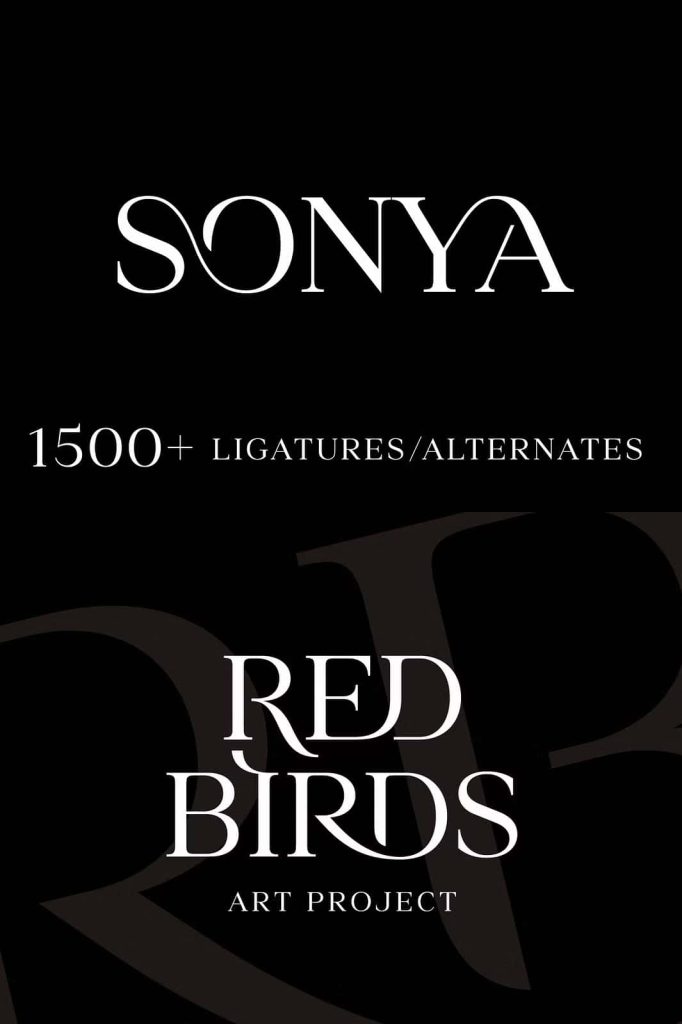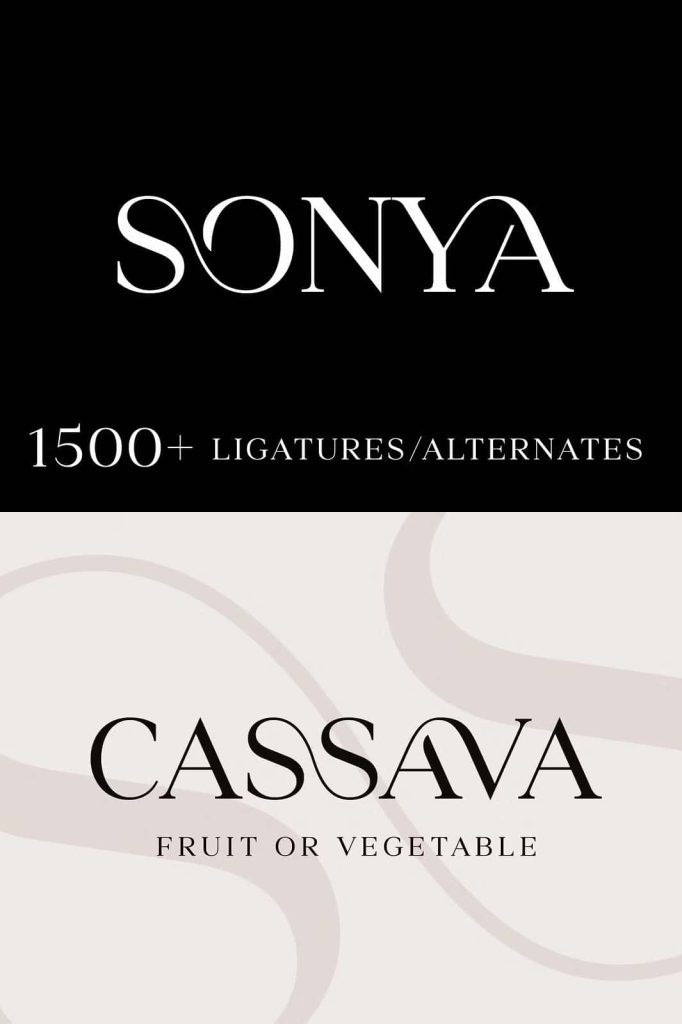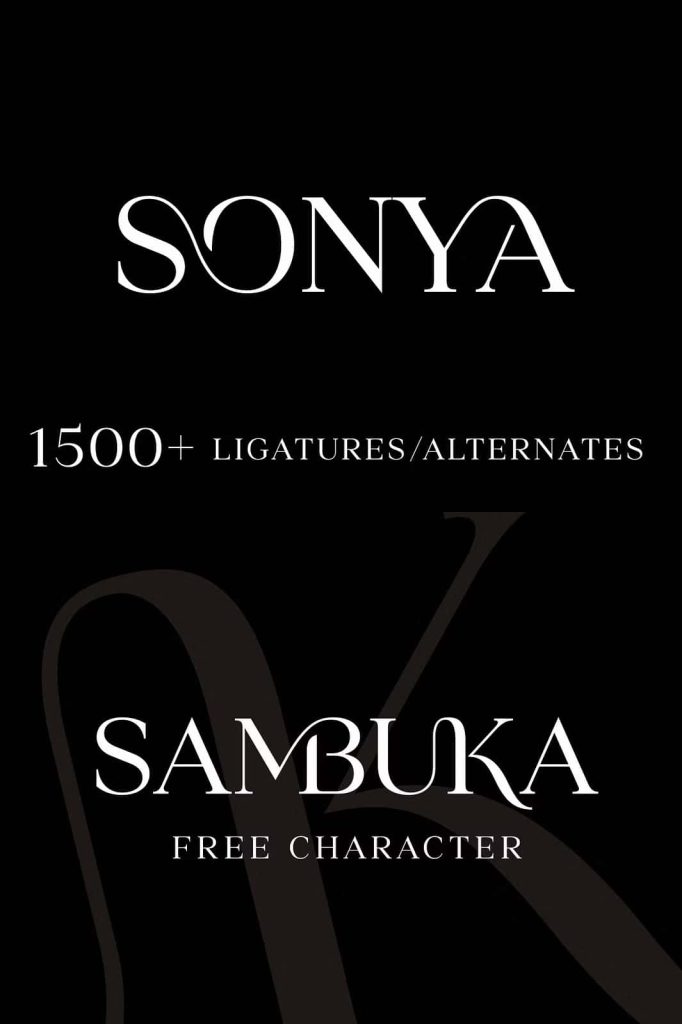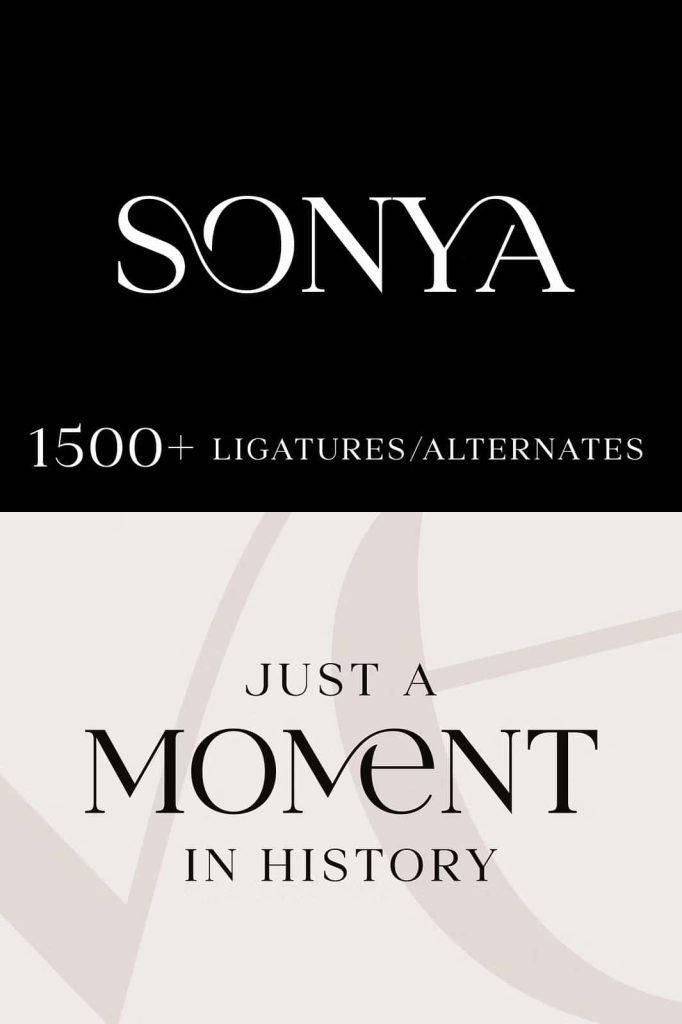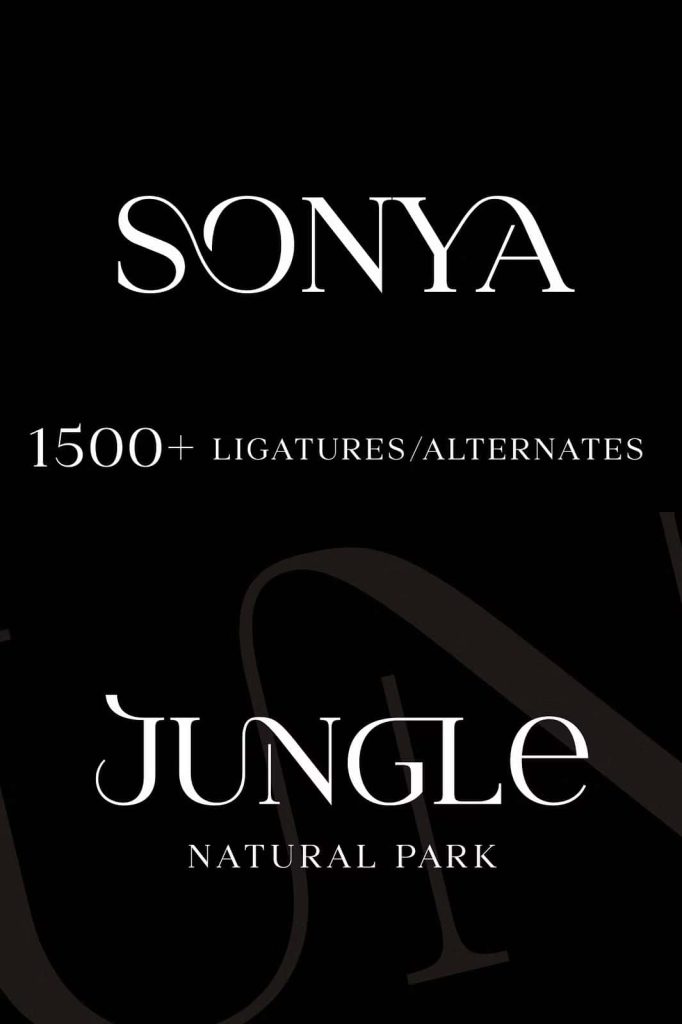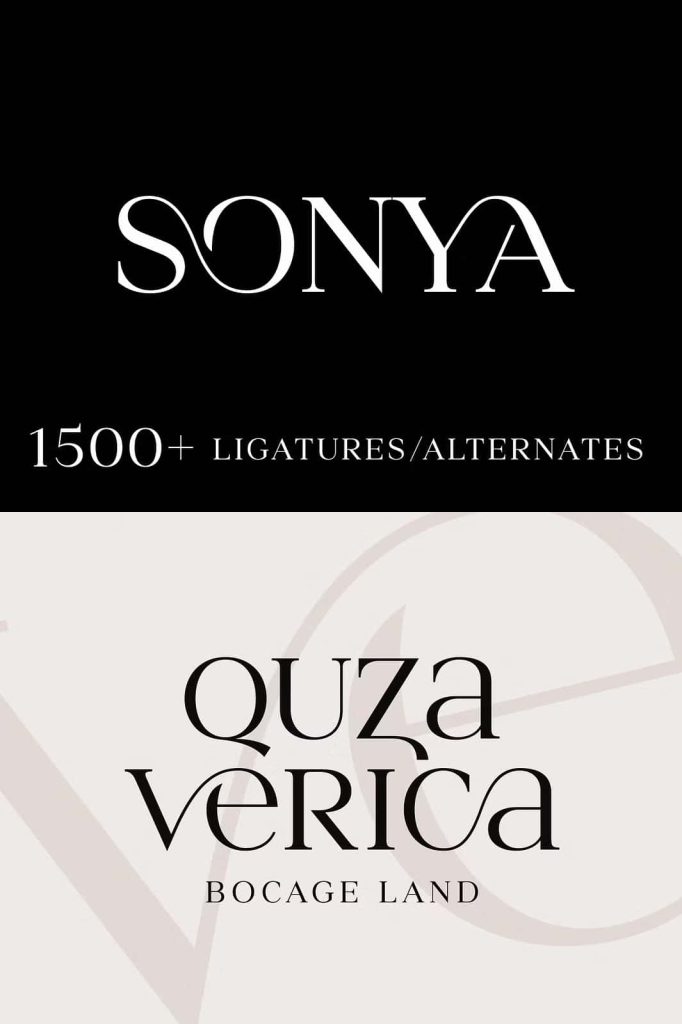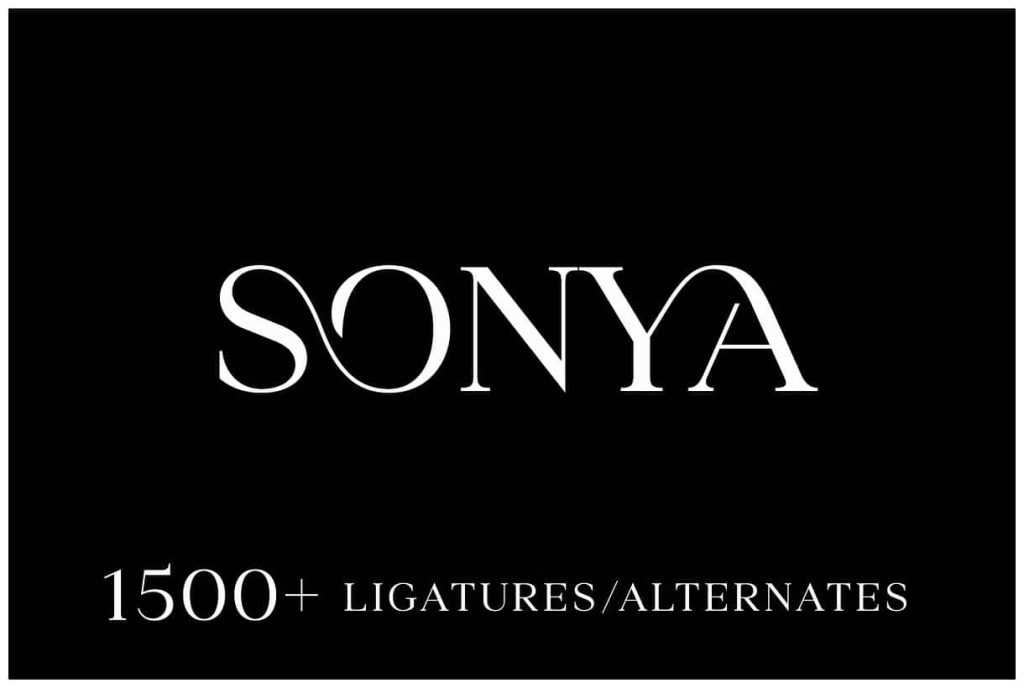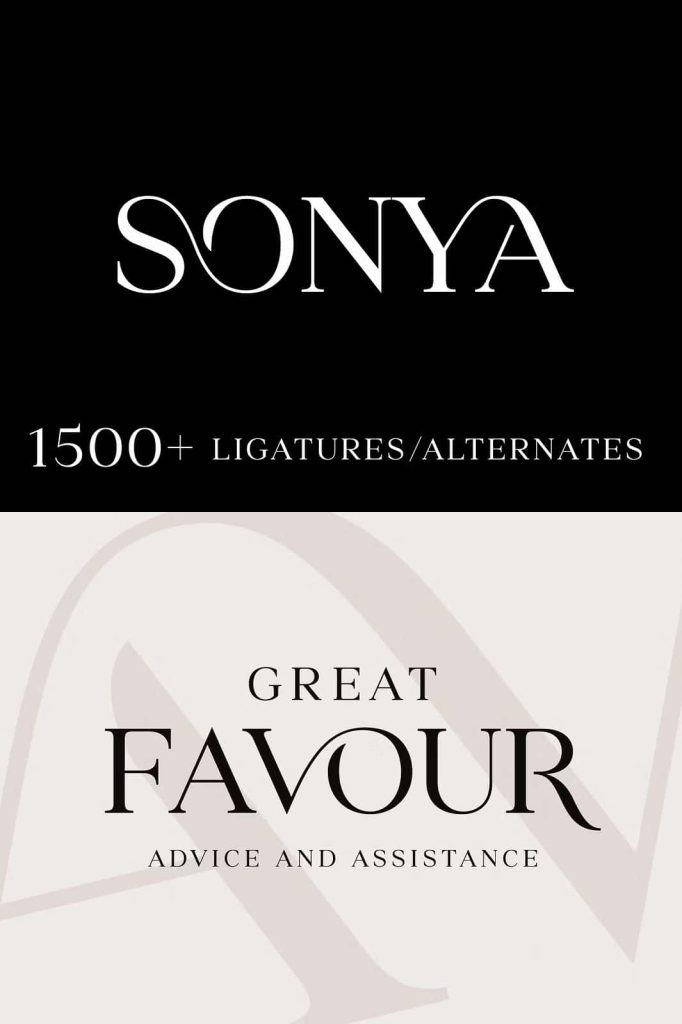
Sonya All Caps Serif Font: Elegant Power with Advanced Ligatures
Sonya is a modern all caps serif font that brings bold elegance and refined detail into contemporary typography. Designed with precision and creative flexibility in mind, Sonya transforms traditional serif structures into a powerful display tool. It offers a distinctive voice that feels both classic and innovative, making it ideal for designers who want to create impactful visual statements.
This typeface focuses entirely on uppercase letterforms, allowing it to deliver strong and consistent visual presence. With a wide variety of alternates and an advanced ligature system, Sonya provides unmatched control over typographic styling. Designers can shape text into unique compositions that stand out in branding, editorial layouts, and high-end design projects.
A Bold All Caps Serif with Strong Character
Sonya embraces the strength of uppercase typography while maintaining elegance through carefully crafted serif details. Each letterform features balanced proportions, clean lines, and subtle contrast that enhance readability while preserving a sophisticated look.
The all caps structure ensures consistency across words and phrases, making it especially effective for headlines, logos, and display text. Designers can rely on Sonya to deliver a bold and commanding presence without losing refinement.
Refined Serif Details for Modern Design
The serif elements in Sonya add a sense of tradition while remaining modern and clean. These details create a visual rhythm that guides the reader’s eye and enhances the overall composition. The typeface avoids excessive ornamentation, focusing instead on precision and clarity.
This balance between classic and modern design allows Sonya to adapt to a wide range of creative styles. It works equally well in luxury branding, editorial design, and contemporary visual identities.
Extensive Alternates for Creative Freedom
Sonya includes a wide variety of alternate characters that give designers the ability to customize their typography. These alternates provide subtle variations in letterforms, allowing for more expressive and personalized designs.
Designers can experiment with different combinations to create unique visual outcomes. This flexibility makes Sonya an excellent choice for projects that require originality and attention to detail. It encourages creativity while maintaining a cohesive design language.
Advanced Ligature System with Unique Combinations
One of Sonya’s most impressive features is its advanced ligature system. The font offers up to seven unique ligatures for each two-letter combination, giving designers an extraordinary level of typographic control. These ligatures enhance the connection between letters and create a more fluid and harmonious appearance.
By using these ligatures, designers can craft sophisticated wordmarks, elegant headlines, and visually engaging compositions. The variety of options ensures that each design feels unique and carefully considered.
Perfect for Branding and Display Typography
Sonya excels in branding projects where strong visual identity plays a crucial role. Its bold uppercase design and customizable features make it ideal for logos, packaging, and brand systems. The typeface helps brands communicate confidence, elegance, and distinction.
In display typography, Sonya creates striking headlines that capture attention immediately. Its refined structure and unique ligatures add depth and character to large-scale text, making it suitable for posters, advertisements, and digital media.
Ideal for Editorial and Creative Projects
Sonya also performs well in editorial design, where typography often defines the overall aesthetic. It enhances layouts by adding a strong visual anchor while maintaining readability. Designers can use it to create compelling titles, section headers, and feature spreads.
Creative professionals will find Sonya particularly useful for projects that demand originality. Its combination of alternates and ligatures allows for endless experimentation, enabling designers to push the boundaries of traditional typography.
Precision and Consistency in Every Detail
Every element of Sonya reflects careful craftsmanship. The spacing, proportions, and alignment have been meticulously designed to ensure consistency across all characters. This precision allows the typeface to perform reliably in different contexts and sizes.
Whether used in print or digital formats, Sonya maintains its clarity and visual impact. Designers can trust it to deliver high-quality results in both large display settings and more detailed compositions.
Conclusion
Sonya all caps serif font combines bold structure, elegant detailing, and advanced typographic features into a powerful design tool. With its wide range of alternates and up to seven unique ligatures for each letter pair, it offers unmatched creative flexibility. Designers can use Sonya to build distinctive branding, striking headlines, and refined editorial layouts that leave a lasting impression.